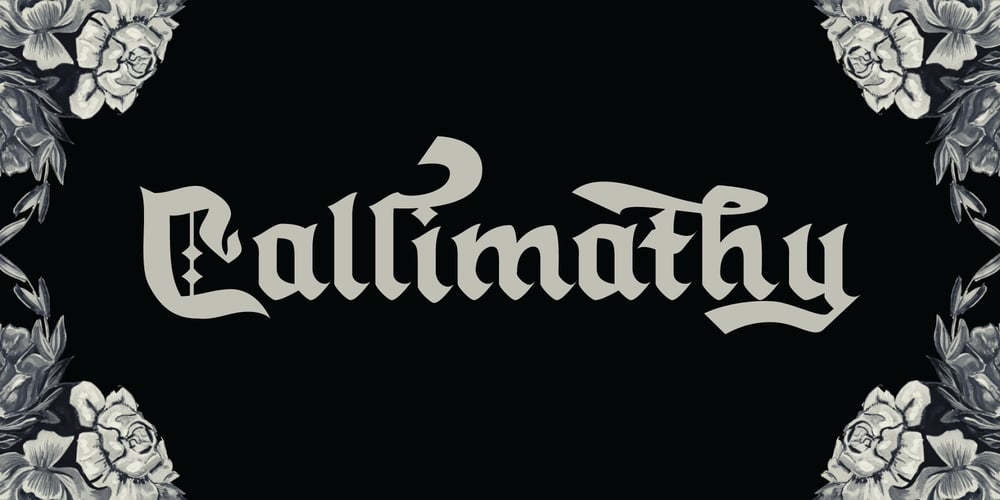
Callimathy Font Family was designed by A A Ngurah A Krisna Teja and published by Anomali Creative. Callimathy contains 6 styles and family package options. Broken letters or Gothic letters, also known as German letters, are the typeface used in Europe West from the 12th century to the 17th century. Meanwhile, Danish spoke it until 1875 and German, Estonian and Latvian spoke it well into the 20th century. Fracture is one of the broken typefaces that is often considered to represent the entire broken typeface. Broken letters are sometimes also called Old English, but not in the Old English or Anglo-Saxon sense that was born centuries earlier.This group of letters is so named because it contains Latin letters that have breaks in the curvature of the letters, either in part or in whole designs. The fracture arises from a sudden dip when writing certain parts of the letter. In contrast, letters with perfect, unbroken curves, such as Antikua, are created from smooth, flowing writing movements.Callimathy is a font inspired by the Blackletter typeface, made with a modern impression but still looks strong and unique. In addition, Young Best font is also supported with multilingual characters that can be used in several international languages.Callimathy font is very suitable for use in making music album cover designs, tattoo logos, wishkey labels, packaging pomades and so on which are made with dark and strong concepts.